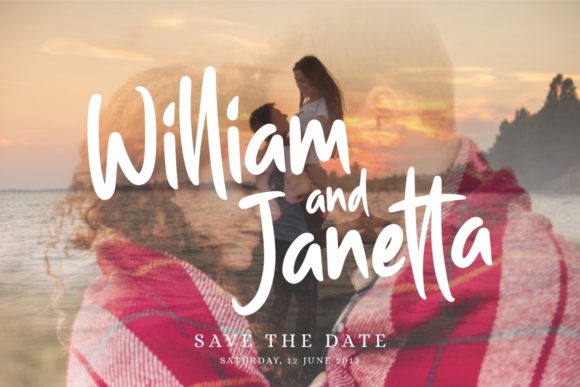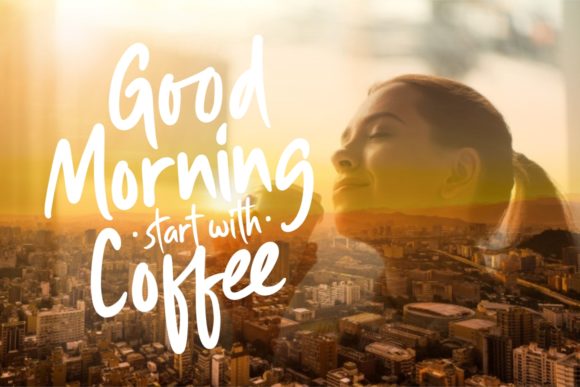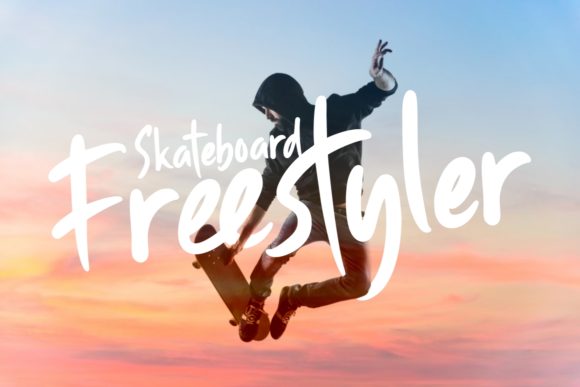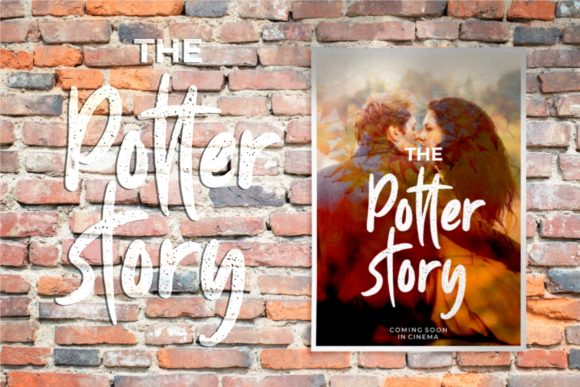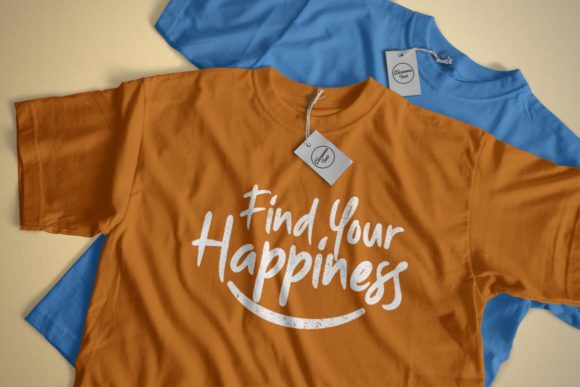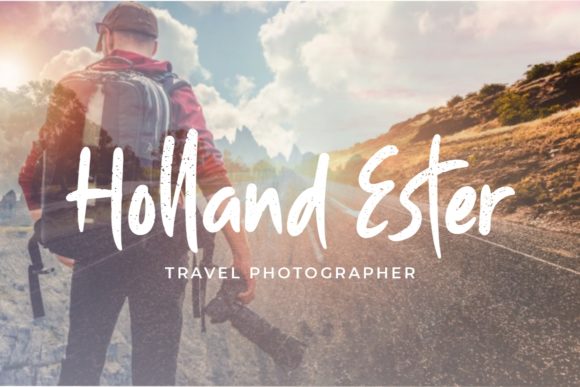
Introduction to Smooth Butter Font
There’s nothing quite like the thrill of finding the perfect font for a creative project. You’ve spent hours poring over design resources, searching for that one elusive element that will elevate your work from good to great. And then, suddenly, it hits you – the perfect font, with a charm that’s both effortless and elegant. For many designers, that font is the Smooth Butter Font, a bold display font that’s as versatile as it is beautiful.
With its casual, down-to-earth charm, the Smooth Butter Font is the perfect choice for designers looking to add a touch of sophistication to their creative projects. Whether you’re working on a branding project, a marketing campaign, or simply a personal design experiment, this high-quality font is sure to impress. And the best part? It’s available for free download, making it a valuable resource for designers on a budget.
But what sets the Smooth Butter Font apart from other design resources? For starters, its transparent background makes it incredibly easy to work with, allowing you to focus on the design rather than the details. And with its smooth, buttery texture, it’s the perfect choice for designers who want to add a touch of elegance to their work without sacrificing readability.
Key Features of Smooth Butter Font
- High-quality, professional font suitable for creative projects and design resources.
- Smooth, elegant design with a transparent background, ideal for overlaying on images or videos.
- High-resolution design (300 DPI) for crisp, clear text display.
- Includes multiple weights and styles, allowing for versatility in design applications.
- Perfect for use in graphic design, digital art, and other creative projects where a smooth, buttery font is desired.
Honest Review: Smooth Butter Font
As a designer, I’m always on the lookout for high-quality design resources to elevate my creative projects. The Smooth Butter Font is a recent addition to my collection, and I’m excited to share my honest review.
- High-quality, vector-based design: The Smooth Butter Font is incredibly detailed and scalable, making it perfect for both print and digital designs.
- Transparent background: This feature allows for seamless integration with other design elements and backgrounds, giving me more creative freedom.
While the Smooth Butter Font is an excellent addition to my design library, I do have a few minor complaints:
- Limited font styles: The font family is relatively small, and I wish there were more variations to choose from.
- Not ideal for body text: While the font looks great for headings and titles, it’s not the most readable font for large blocks of body text.
Overall, I’m impressed with the Smooth Butter Font’s quality and versatility. While it may have some limitations, it’s a valuable resource for designers working on creative projects, and I’m happy to have it in my design library.
Getting the Most Out of Smooth Butter Font
For optimal results, use the Smooth Butter Font in combination with other high-quality design elements. Experiment with different font sizes, colors, and styles to create a unique and eye-catching design. This font is perfect for any creative project that requires a smooth and buttery feel.
The Smooth Butter Font is ideal for use in food blogs, recipe websites, and cooking-related designs. Its smooth and creamy texture makes it perfect for creating a warm and inviting atmosphere. You can also use it in design projects related to fashion, beauty, and wellness, where a high-quality and elegant font is required.